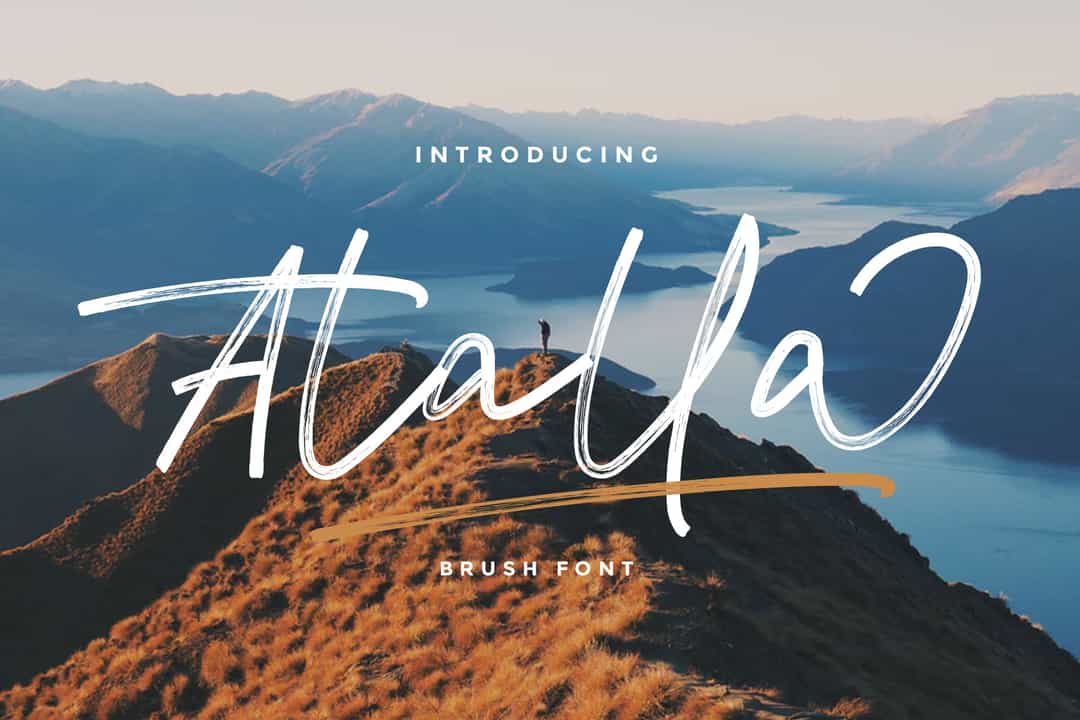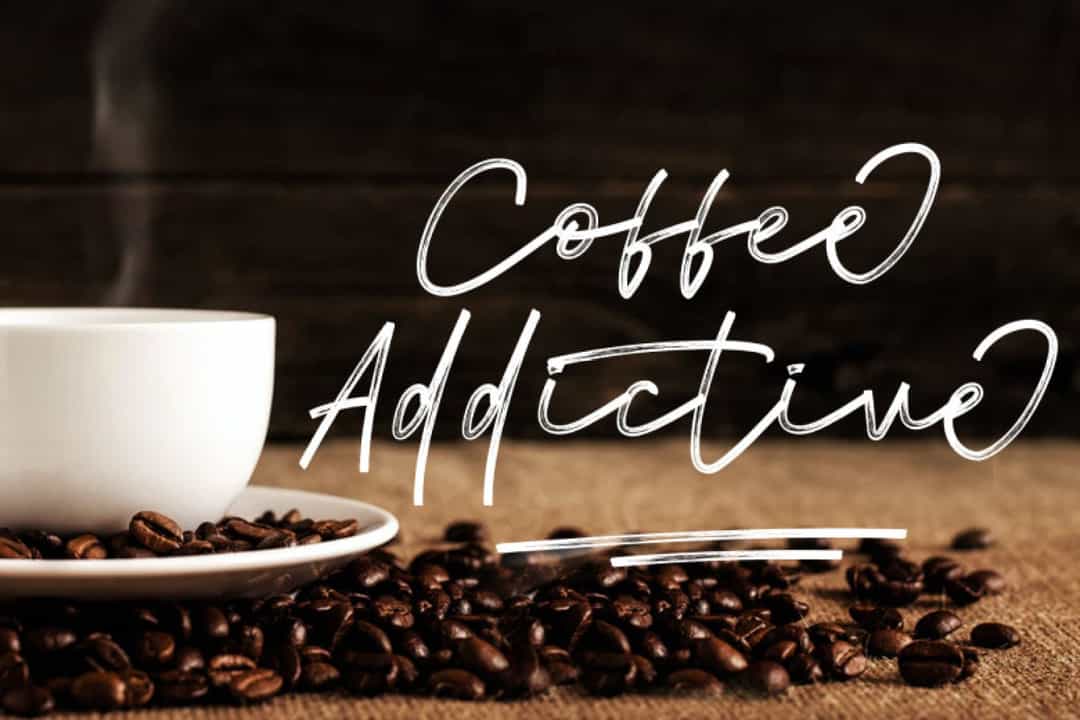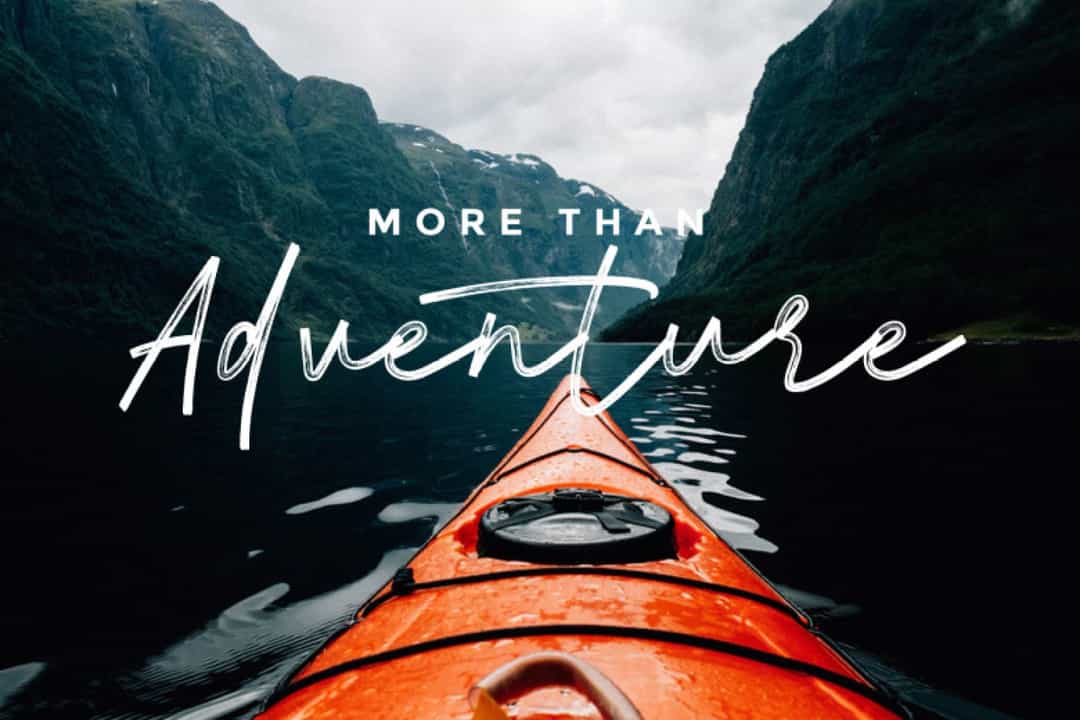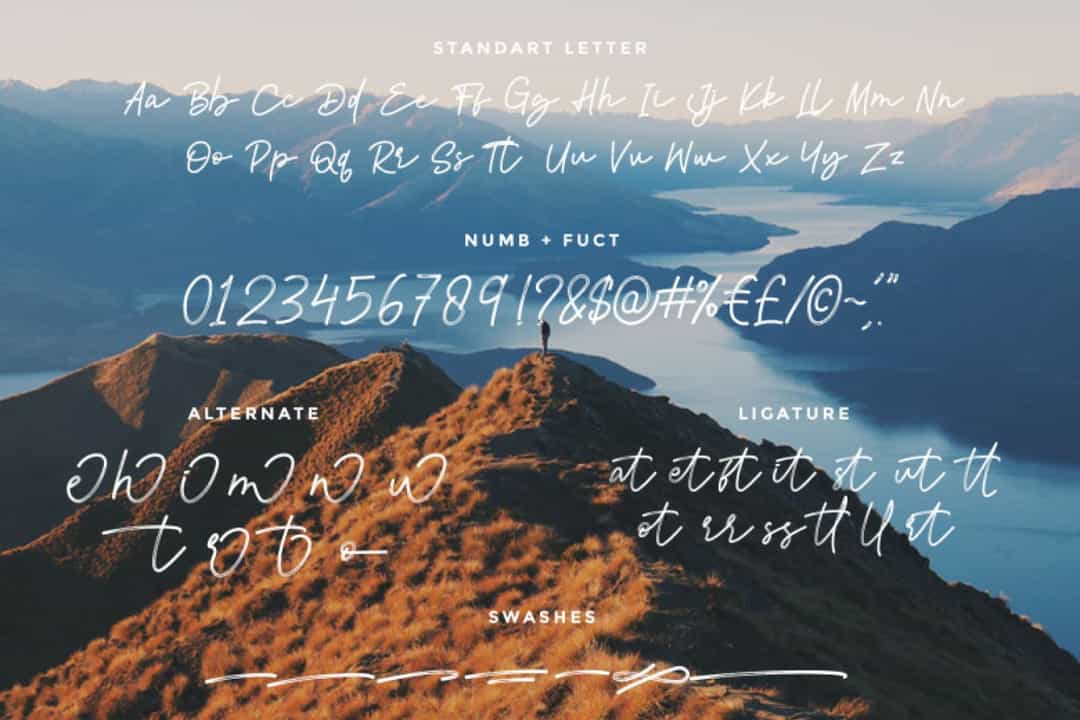
Discover Atalla Font, part of the Brush Script collection—a versatile and unique font perfect for adding a personal touch to your projects. Download it for free and enjoy crafting designs with style, from invitations to social media posts. This font is available exclusively for personal use, giving you the freedom to create without limits. Unlock your creativity with Atalla Font today!
Atalla is a hand-brushed font created by Rantautype with two styles. All features overlines and spills of paint to enhance the personality of the other. Festany can be categorized as an open type font that has hand lettering characteristics incorporated in it.